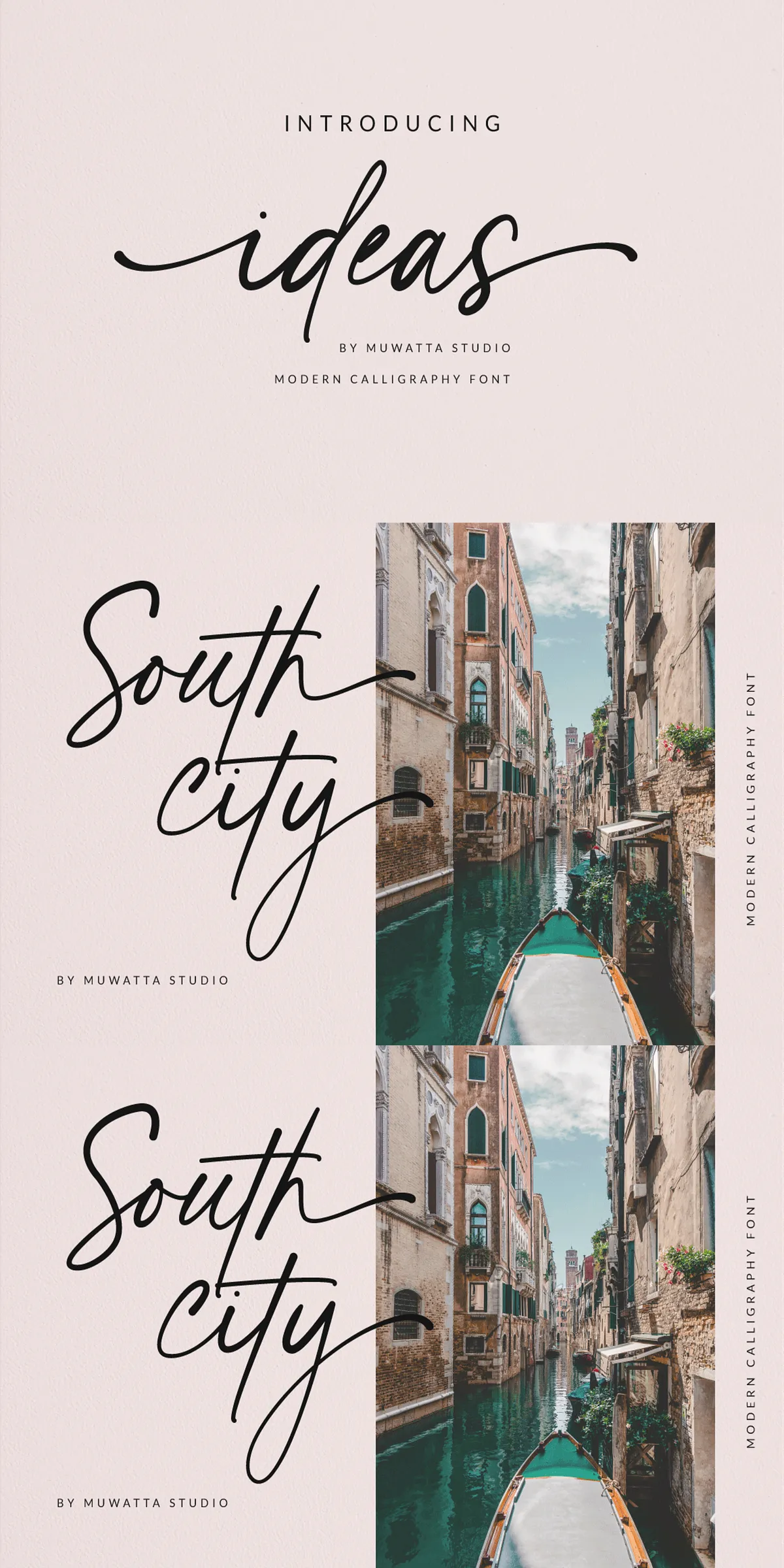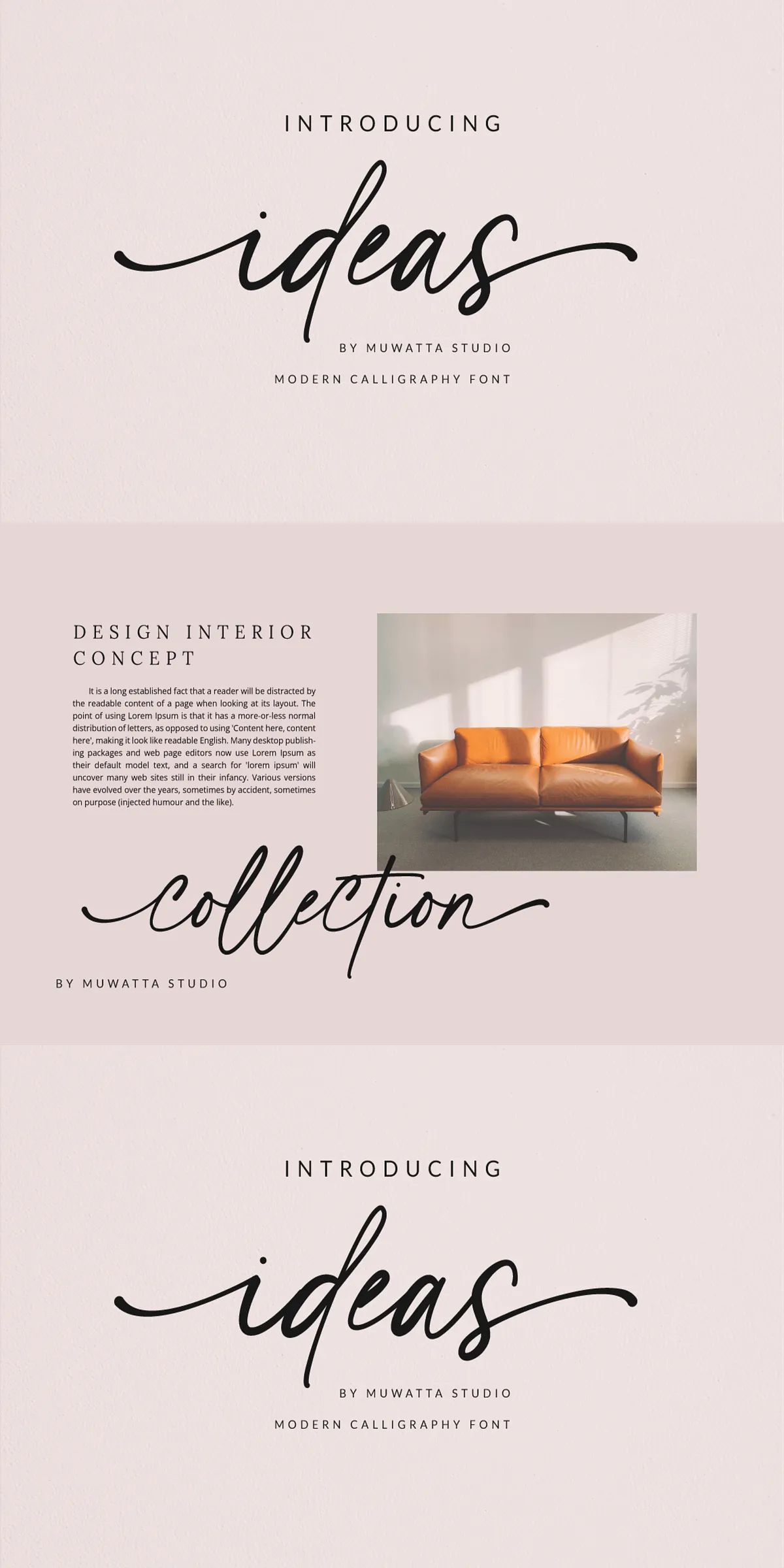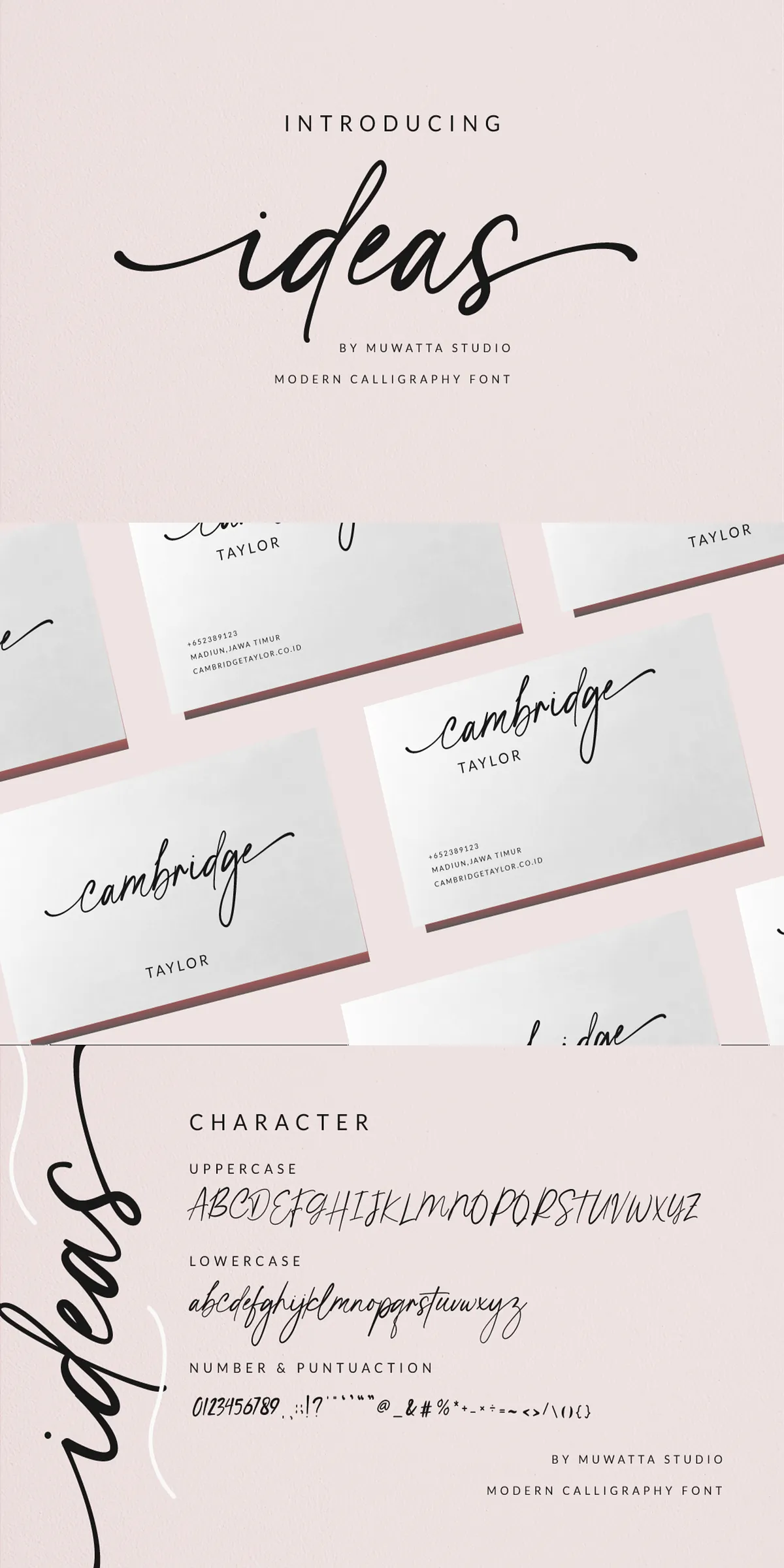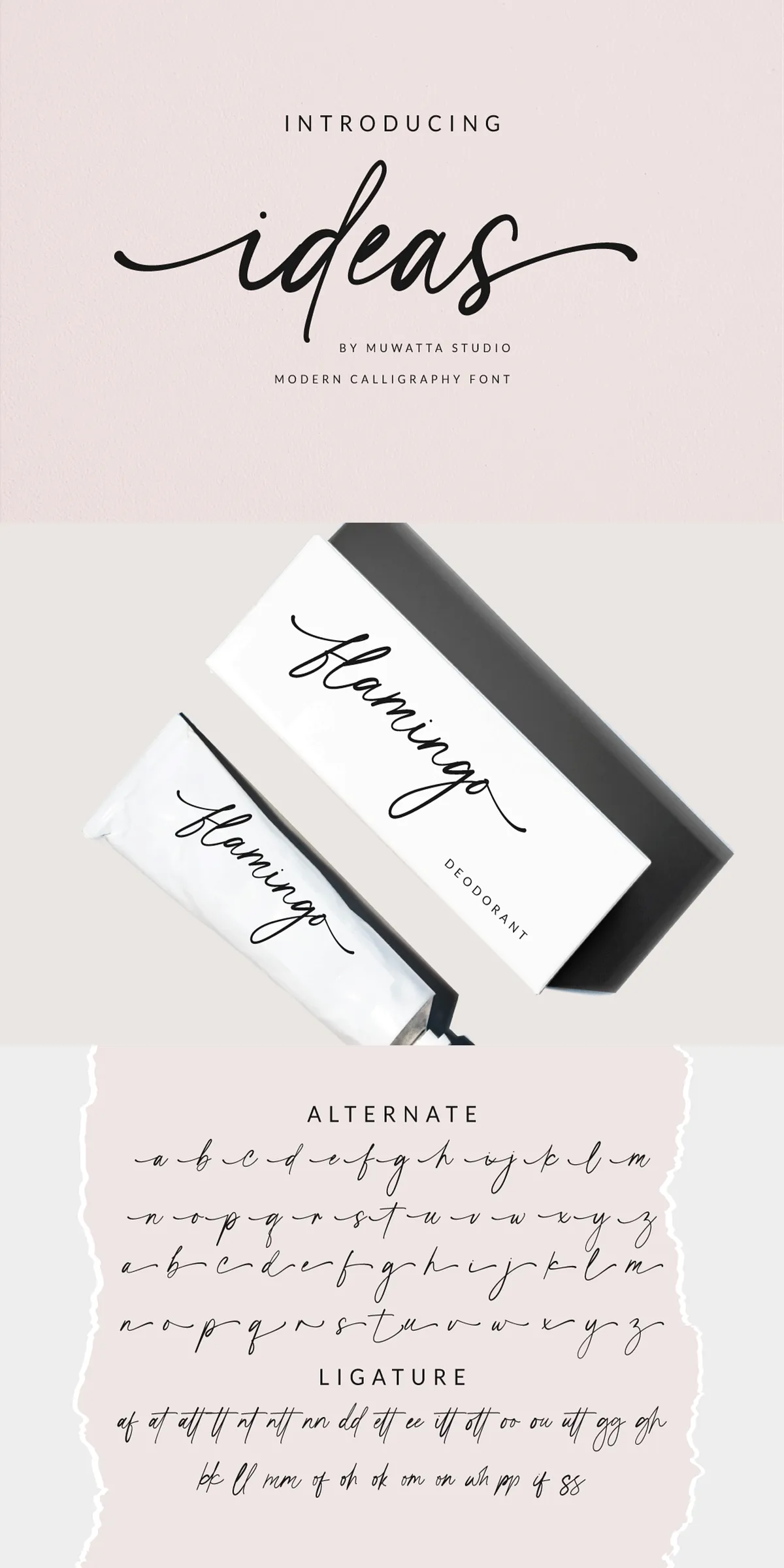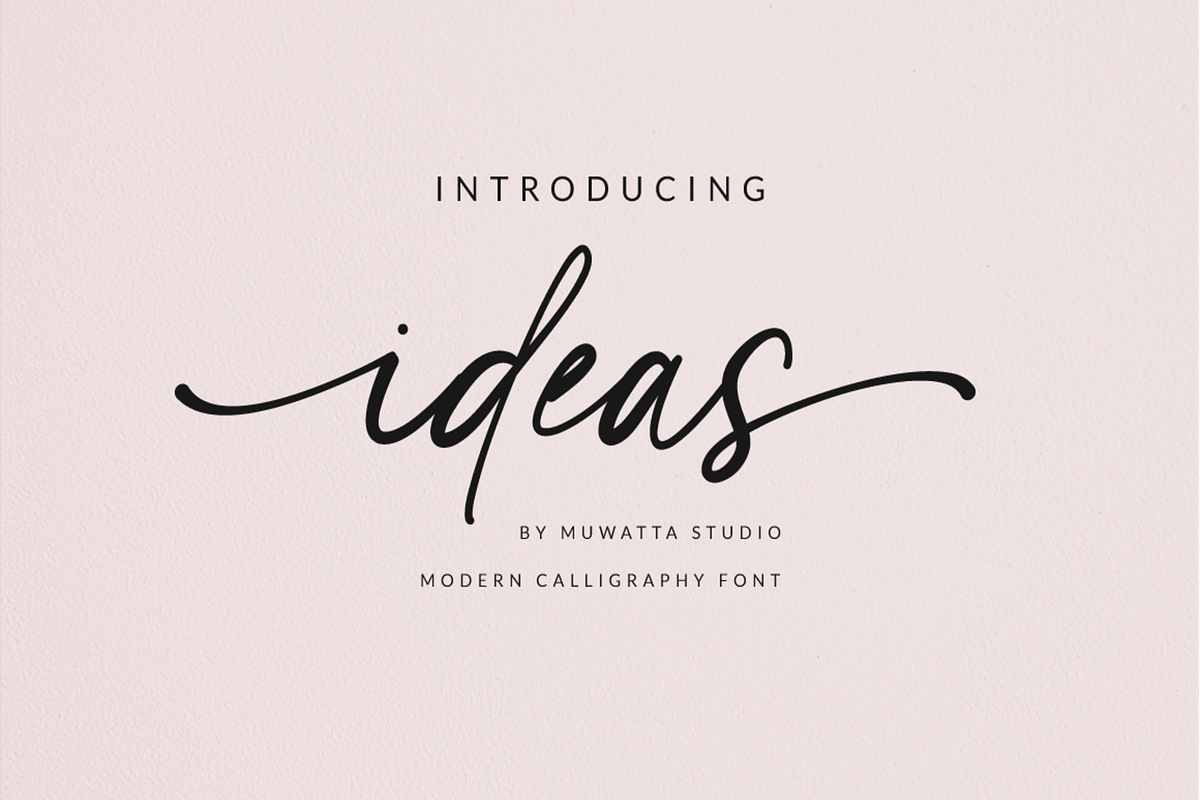
Discover Ideas, a premium typeface crafted to elevate the elegance of any project. Its refined strokes and fluid curves strike the perfect balance between classic calligraphy and contemporary flair, delivering a timeless yet fresh look that instantly upgrades invitations, wedding themes, fashion branding, and editorial layouts.
Why Choose Ideas for High‑End Projects?
Ideas isn’t just another script; it is a meticulously engineered font family that offers:
- Full Alphabetic Coverage – Complete uppercase and lowercase letters for seamless word‑level design.
- Comprehensive Numerals & Punctuation – Numbers and symbols that integrate cleanly with the script’s flow.
- Alternate Lowercase Forms – Multiple stylistic sets let you switch between subtle and expressive letterforms.
- OpenType Ligatures – Smart connections that erase awkward gaps, creating smooth, continuous text.
- Multilingual Support – Extended character sets for broader language coverage, ensuring the font works across diverse markets.
Design Flexibility Across Multiple Media
Whether you are designing a formal wedding invitation, an upscale fashion lookbook, or a high‑gloss editorial spread, Ideas adapts effortlessly:
- Wedding & Event Stationery – Add a touch of romance and refinement to save‑the‑date cards, RSVP forms, and ceremony programs.
- Fashion Branding – Use the script for logo logotypes, runway lookbook headings, and boutique marketing collateral.
- Editorial Design – Bring a sophisticated voice to feature spreads, magazine covers, and article pull‑quotes.
- Pair Ideas with a clean sans‑serif for contrast; let the script dominate headings while the sans‑serif handles body copy.
- Test the font at various point sizes; its fine details remain legible even at smaller scales, making it ideal for both large titles and subtle footer text.
- Utilize the multiple lowercase alternates to create visual hierarchy within a single design, emphasizing key words or phrases.
Elevate Your Brand with Ideas